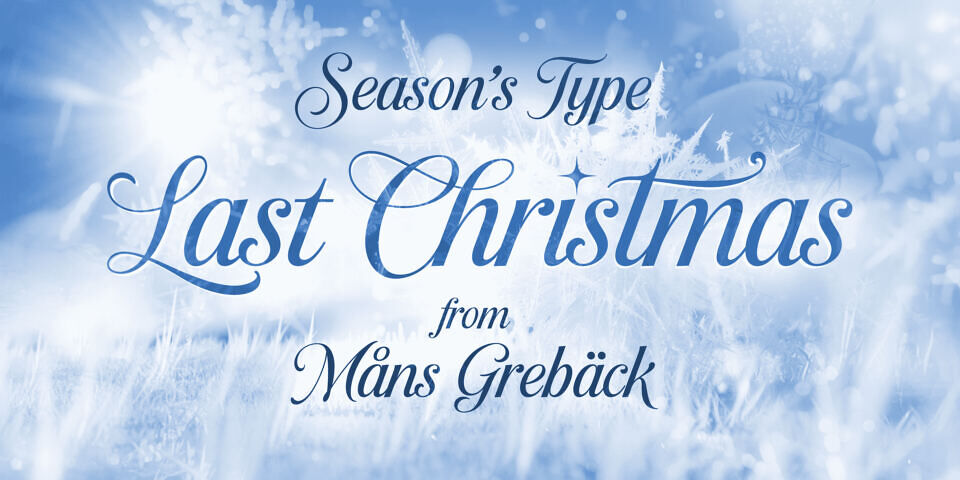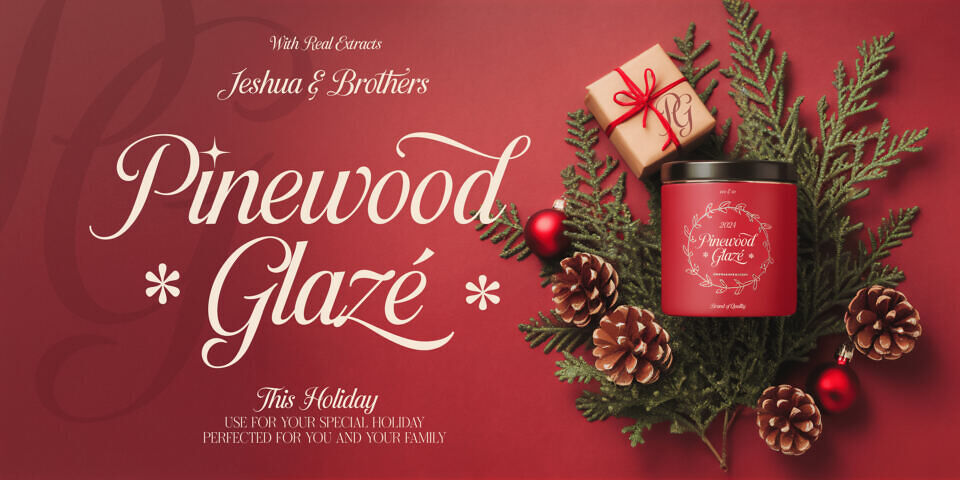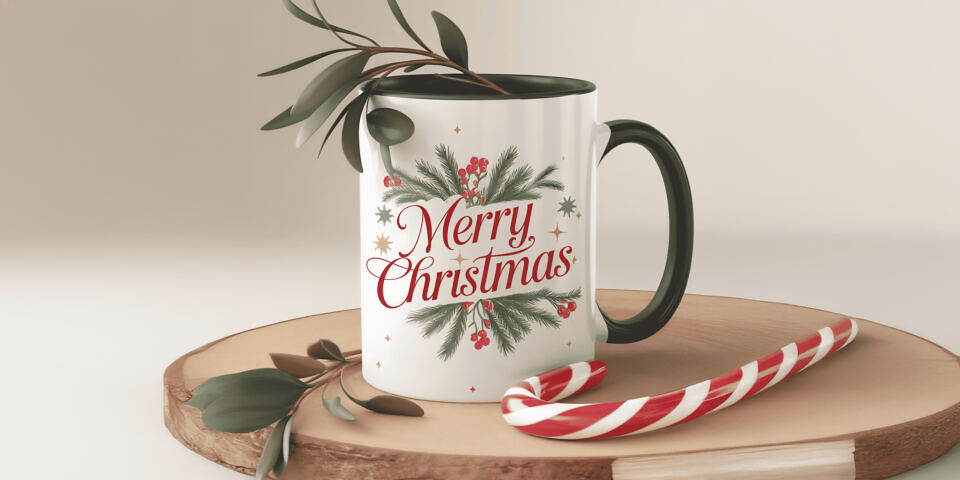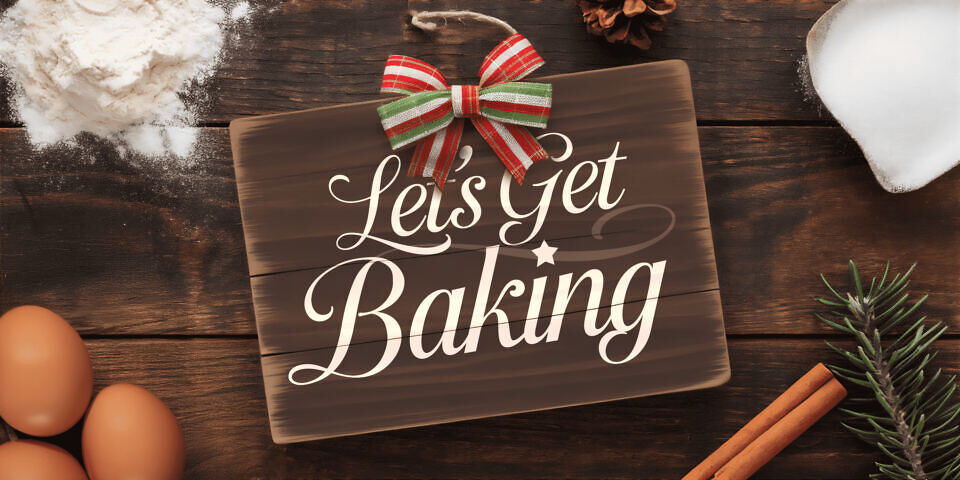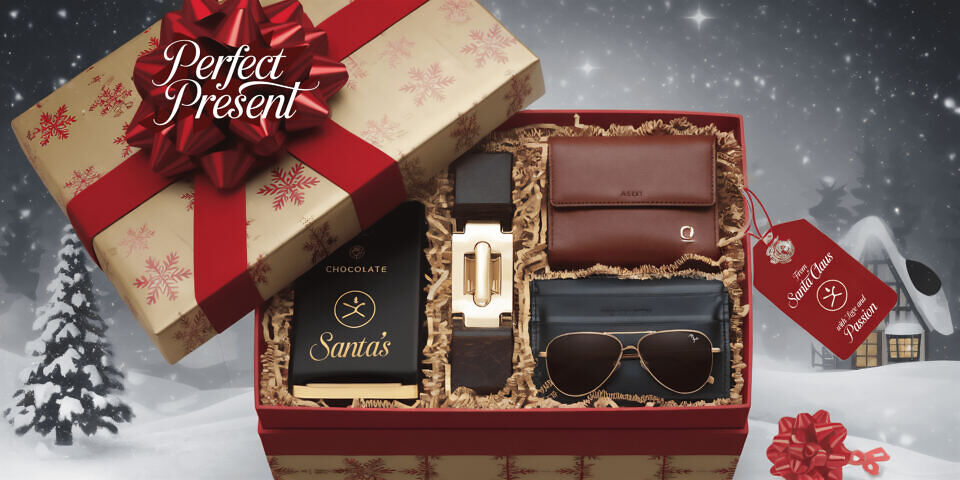
Last Christmas Font
Last Christmas is a graceful and refined script typeface, blending elegance with a festive charm. Its swirling, intricate strokes capture the warmth and joy of the holiday season, making it the perfect choice for enchanting designs that evoke celebration and love.
The font’s balanced swashes and ornate details create a formal yet inviting aesthetic, ideal for conveying a sense of tradition with a contemporary touch. Its smooth flow and perfected design are meticulously crafted to ensure every letter exudes beauty and class. Whether used for heartfelt Christmas cards, seasonal invitations, or decorative signage, Last Christmas brings a sophisticated and lovely character to your holiday creations.
Tips:
• Use underscore _ anywhere in a word to create a swash. Example: Santa _Claus
• Use multiple underscores to make different swashes. Example: Yule_________time
Designed by: Måns Grebäck